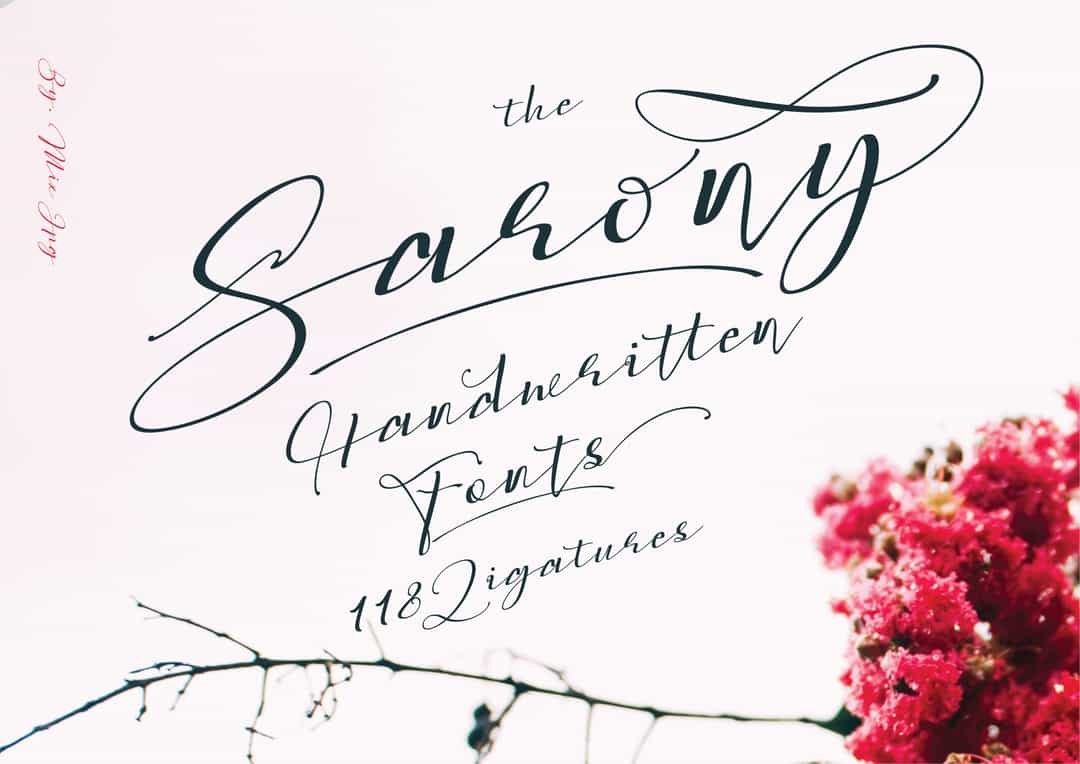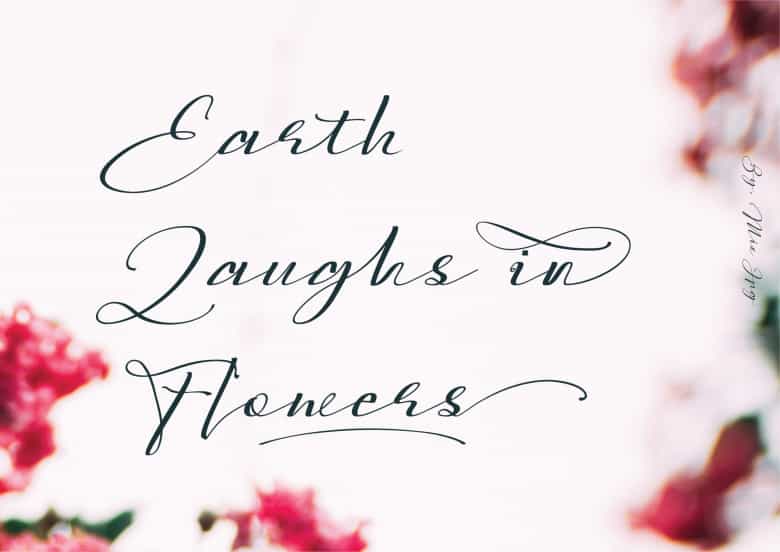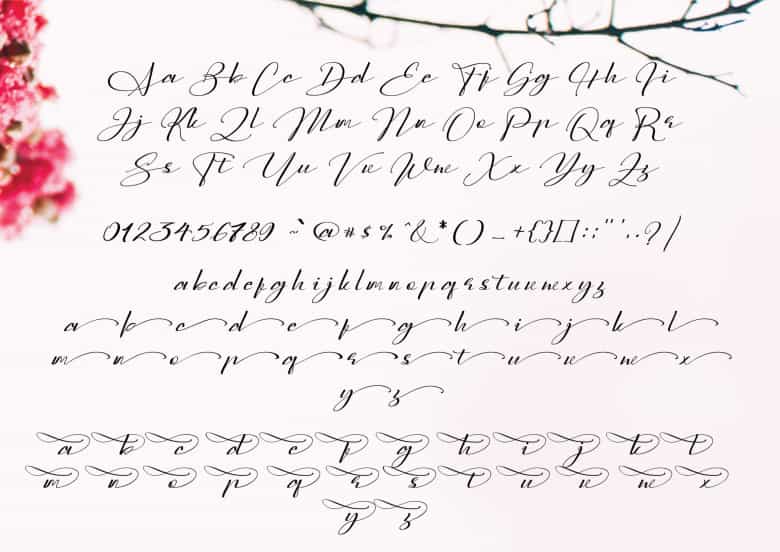
“Sarony” is a contemporary handwritten script font with contextual alternatives that makes it perfect for wedding invitations and cards. “Sarony” features lowercase numerals, letters, multiple punctuation styles as well as the 118 Ligatures needed.